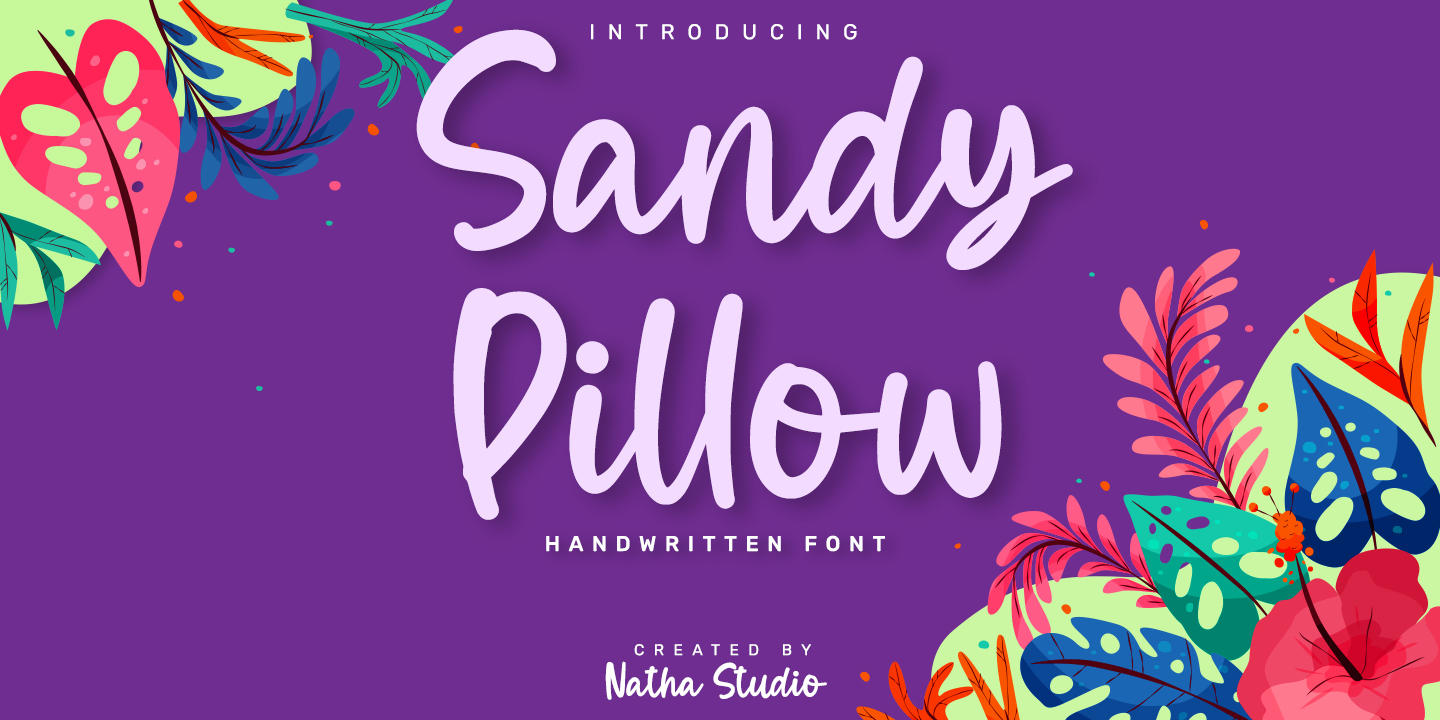
Sandy Pillow Font is perfect for cozy bedroom furniture branding, soft bedding company identity, comfortable sleep center signage, relaxing spa retreat materials, dreamy children's bedroom decor, gentle wellness coaching, peaceful meditation centers, soothing comfort product packaging, and tranquil social media content. This comforting typeface brings soft elegance and restful sophistication to both digital and print design applications.
Sandy Pillow Font is exciting because it embodies the gentle comfort and peaceful serenity of perfect rest, making it an exceptional choice for designers who want to convey softness and tranquility with authentic comfort appeal. Its soft letterforms and cushioned character provide the perfect combination of gentle elegance and restful functionality, ensuring your projects communicate comfort, peace, and restful excellence that resonates with audiences seeking genuine relaxation experiences and comfortable living.
The Sandy Pillow Font family includes soft weight variations and comfort elements, featuring light, regular, and medium weights with complementary gentle styles, peaceful ligatures, and comfort-inspired decorative touches. Each style maintains consistent soft aesthetics while offering flexibility for different comfort applications, allowing designers to create soothing visual systems that reflect wellness values and comfortable sophistication.
Whether you're designing for comfort brands, wellness companies, or relaxation projects, Sandy Pillow Font Free Download delivers authentic comfort appeal and peaceful sophistication that connects with audiences seeking genuine rest experiences and comfortable excellence. This premium typeface offers designers the soft elegance and comfort charm needed to create designs that communicate restful quality, peaceful living, and comfort authenticity effectively. The font's gentle character makes it perfect for comfort branding, wellness campaigns, and peaceful applications where authentic relaxation credibility is essential. Download Sandy Pillow Font today and comfort your creative projects with genuine peaceful sophistication and restful typography excellence that defines comfort design standards.